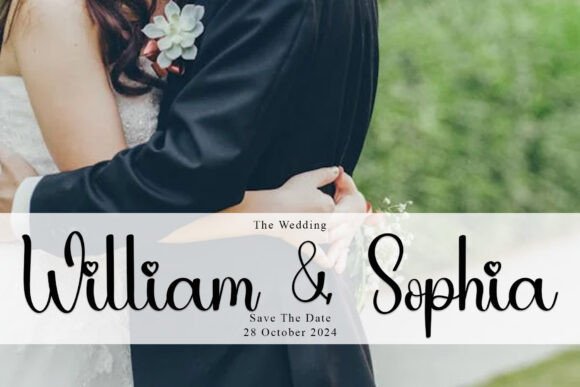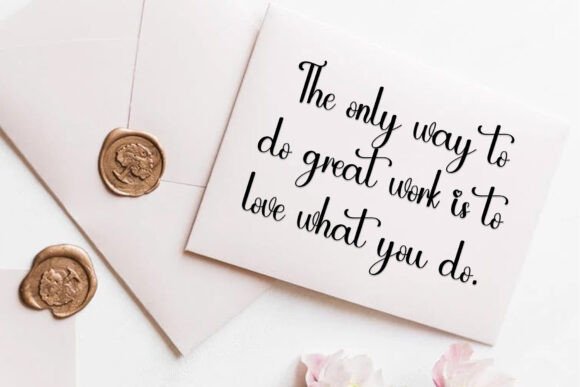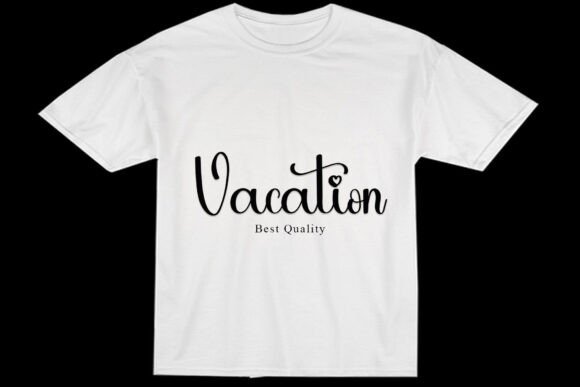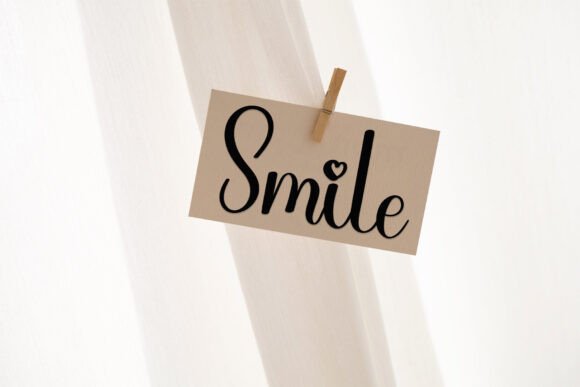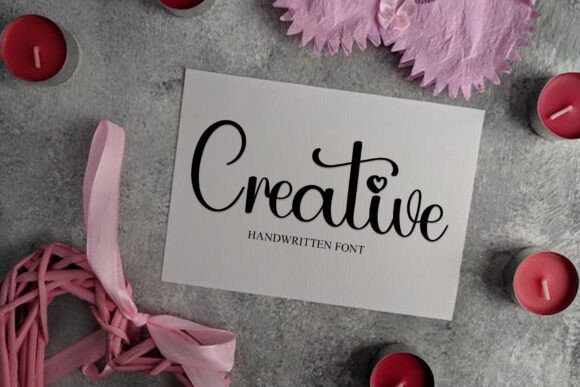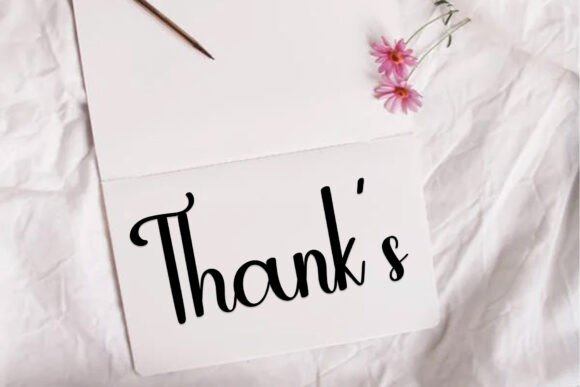
Discover the Charm of Greating Font: Elevate Your Designs with a Timeless Handwritten Style
Are you on the hunt for a font that adds a personal touch to your designs? Look no further than Greating Font, a lovely and timeless handwritten font that’s perfect for creating eye-catching logos, branding, and quotes. With its unique and beautiful touch, Greating Font is sure to make your design come alive!
Handwritten fonts have a way of adding a personal and emotional touch to any design. They evoke feelings of warmth, friendliness, and approachability, making them perfect for designs that aim to connect with the audience on a deeper level. Greating Font is no exception, with its elegant and flowing script that exudes a sense of sophistication and charm.
What Makes Greating Font Special?
So, what sets Greating Font apart from other fonts? Here are just a few reasons why designers and crafters love this font:
• Unique and Beautiful Touch: Every letter in Greating Font has a unique and beautiful touch that adds a level of sophistication to your designs. The font’s elegant and flowing script makes it perfect for creating eye-catching logos, branding, and quotes.
• Timeless Style: Greating Font has a timeless quality that ensures your designs will never go out of style. Whether you’re creating a logo, brochure, or social media graphic, this font is sure to make a lasting impression.
• Versatility: Greating Font is incredibly versatile, making it perfect for a wide range of design applications. Use it for logos, branding, quotes, and more to add a personal touch to your designs.
Uses for Greating Font
Greating Font is perfect for a variety of design applications, including:
• Logo Design: Create a memorable and eye-catching logo that showcases your brand’s personality with Greating Font.
• Branding: Use Greating Font to create a consistent brand identity that exudes elegance and sophistication.
• Quotes and Typography: Add a touch of elegance to your quotes and typography with Greating Font’s beautiful and flowing script.
• Stationery and Invitations: Create beautiful stationery and invitations that showcase your personal style with Greating Font.
Tips for Using Greating Font
Here are a few tips for getting the most out of Greating Font:
• Experiment with Font Sizes: Greating Font looks great in a variety of font sizes, so don’t be afraid to experiment to find the perfect size for your design.
• Pair with Other Fonts: Greating Font pairs well with a variety of other fonts, so try pairing it with a bold font for added contrast.
• Use it Sparingly: While Greating Font is beautiful, it can be overwhelming if used too much. Use it sparingly to add a touch of elegance to your designs.
Greating Font is a timeless and elegant handwritten font that’s perfect for designers and crafters looking to add a personal touch to their designs. With its unique and beautiful touch, Greating Font is sure to make your design come alive! Whether you’re creating a logo, branding, or quotes, Greating Font is the perfect choice.